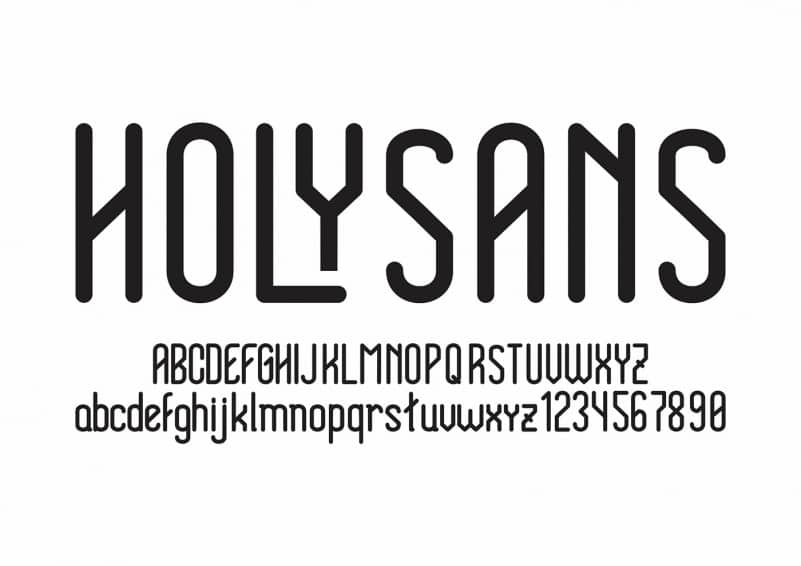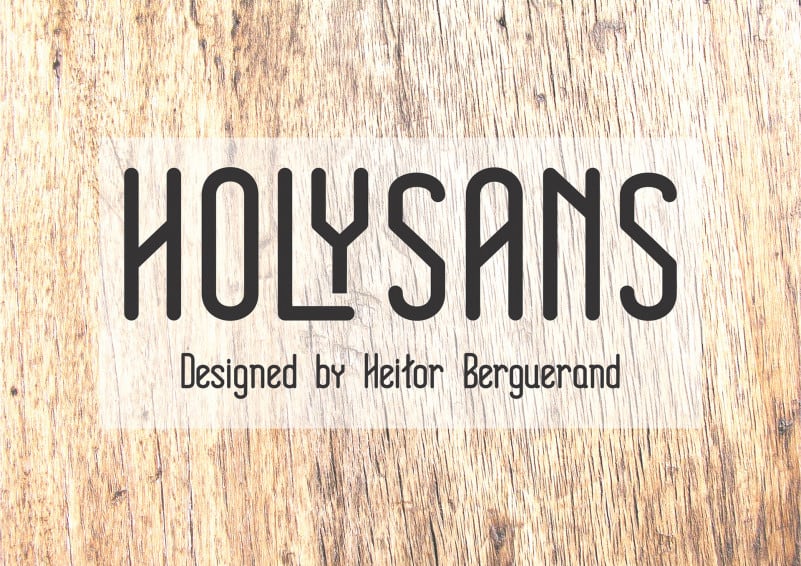
Introducing Holy Sans Serif Font— humanist sans-serif typeface. It is the modern aesthetics in typography. This font is suitable for reading multi-letter and complex texts, as well as for creating kinetic and eye-catching headlines. The font is great for typography and composition.
The main feature of the typeface is clear geometric shapes with soft connecting lines. The font also includes several alternatives for creating coherent and solid headings.
Designed by Heitor Berguerand in 2017